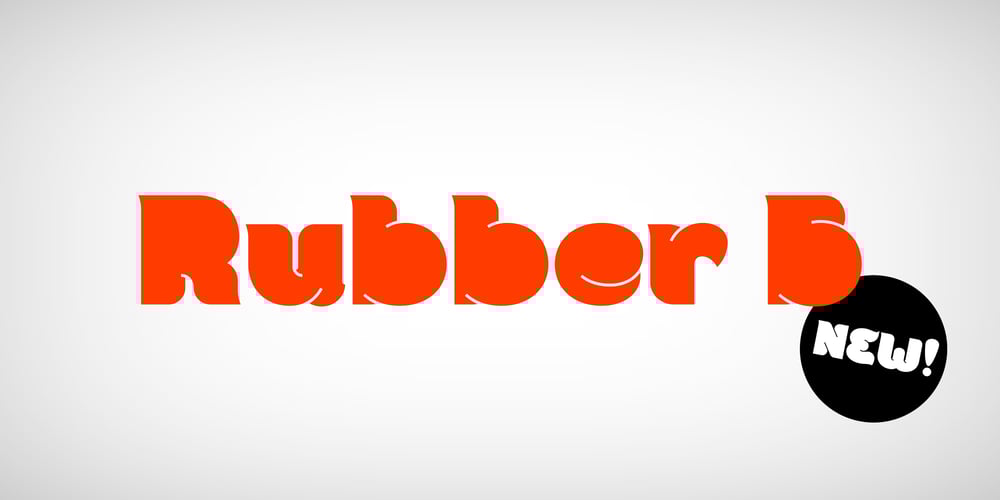
Rubber B
Rubber B font
Rubber B Font Family was designed by Yiorgos Yiacos and published by TwelveTimesTwo. Rubber B contains 1 styles and family package options. Rubber B is a heavy display typeface with very tight open counters & character spacing and non-existent closed counters. It is an amalgam of styles and influences that demands attention. It is comparable with the highly geometric experimental fonts of the ’90s and early ’00s, but also heavily inspired by decorative fonts of the ’60s and the psychedelic poster art of the ’70s. Bold and loud, yet delicate, almost calligraphic in some cases.It works with Latin & Extended Latin, Cyrillic & Extended Cyrillic and Greek. It comes with 1,500+ glyphs, with more than half of them being ligatures. It also contains several Stylistic Alternates as well as Localised forms (available through the Open Type Features and also as ligatures). All these features are available in order to not only make sure that it works with as many languages as possible, but also that depending on the specific glyph or ligature one chooses to use, they have the ability to alter the emotional character of the word(s) they’re setting.Ideal for titles and logos, as it works best in medium and large sizes.